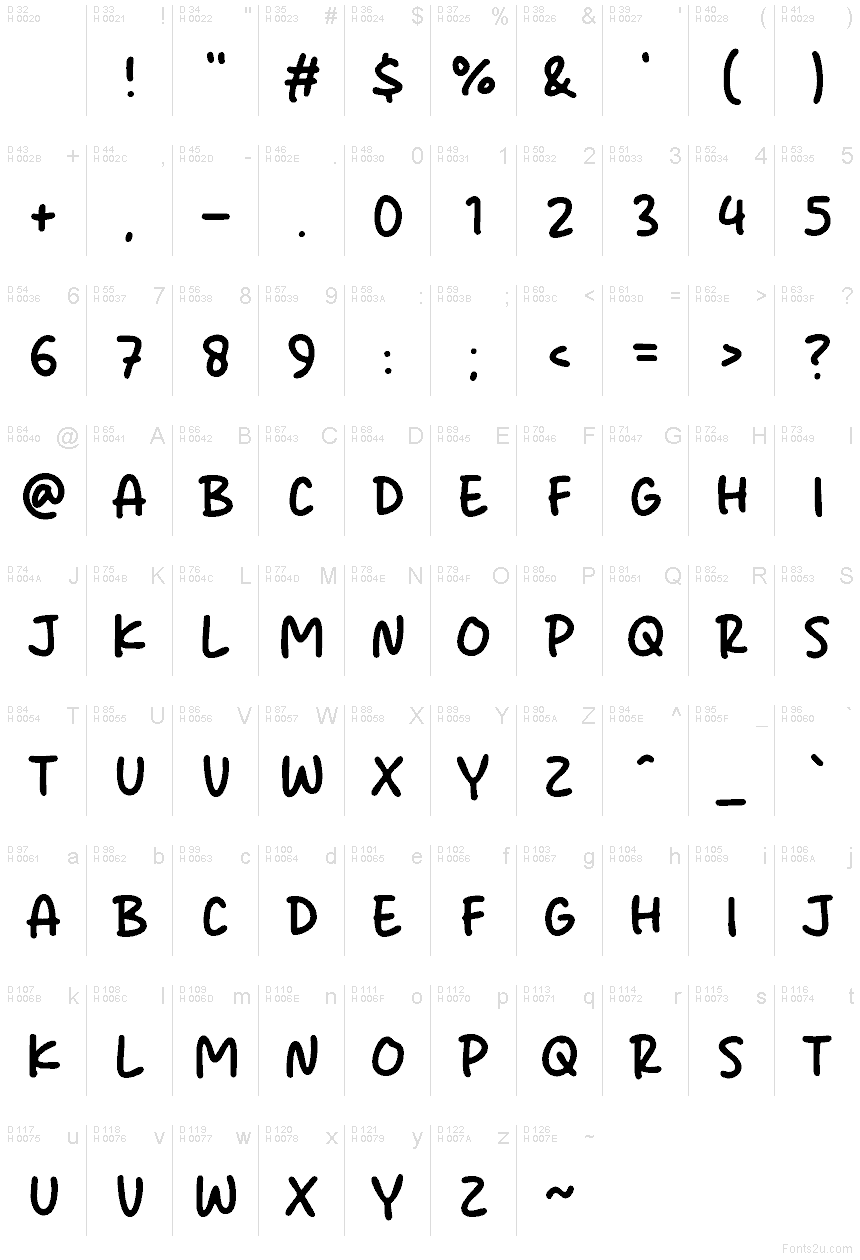
Break Mind
Break Mind font by Origin Type combines hard edges and irregular shapes with a casual style. Its energetic rhythm results in a modern aesthetic and expressive tone perfect for various applications. The handwritten font is free to download.
This selection can make any graphic design more interesting, including banners, social media posts, and typography art. Other potential projects include advertising campaigns, package designs, invitations, stationery items, logs and branding work for agencies or products.